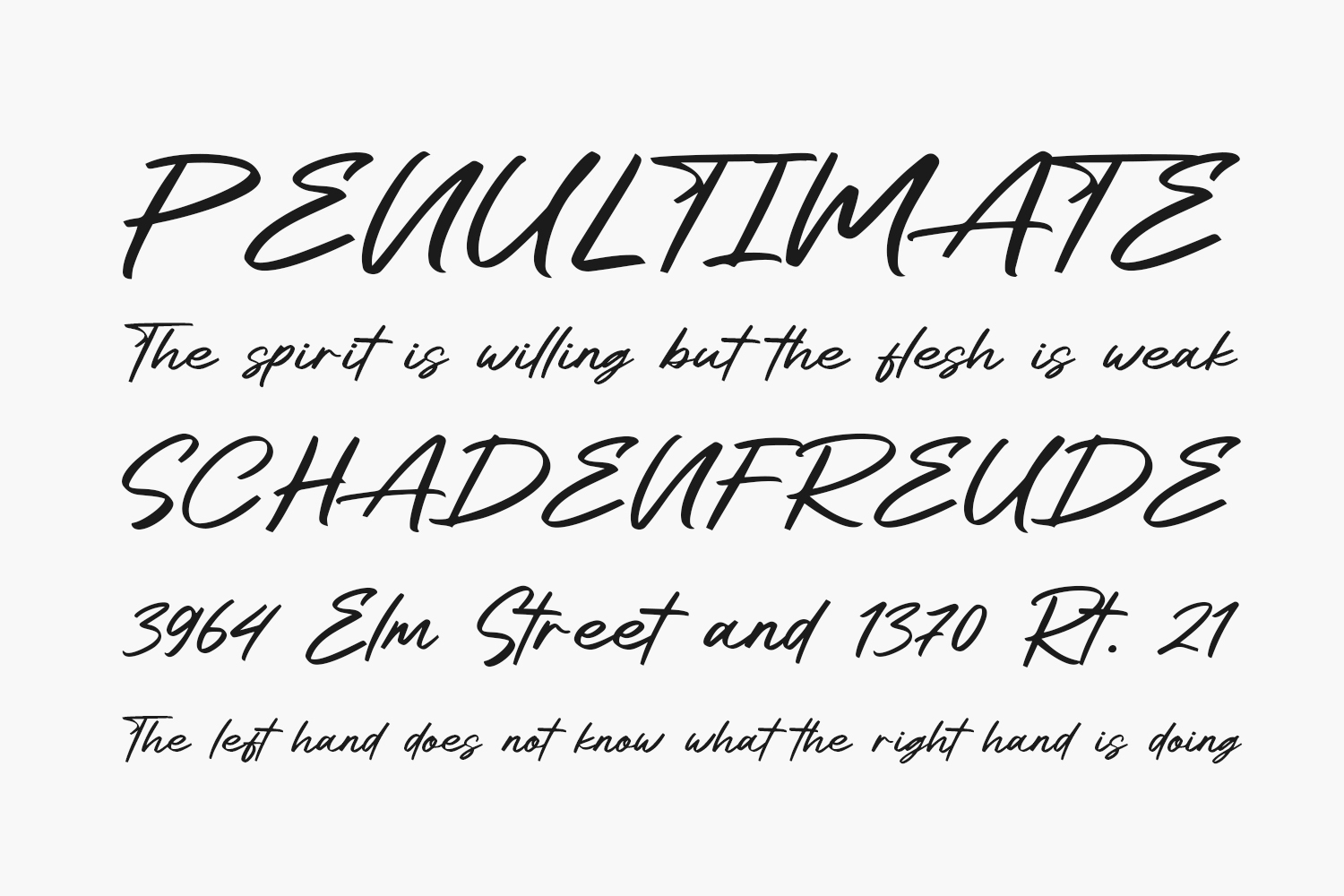
Free Automali Font
Meet Automali Free Font, a sleek, contemporary script font exuding elegance and style. Ideal for posters, logos, magazines, book covers, banners, and beyond! Elevate your designs with this exceptional font, versatile enough to complement a wide array of projects. Let it infuse your creative endeavors with a touch of sophistication and watch them shine. Download the font for free if you need it for personal use or purchase the full version for commercial use.